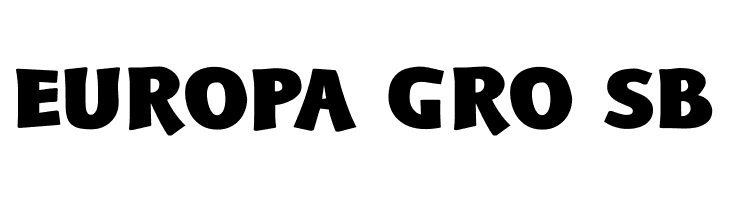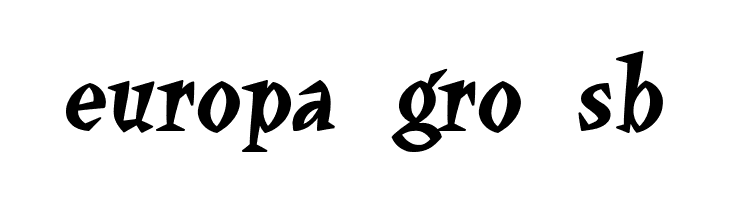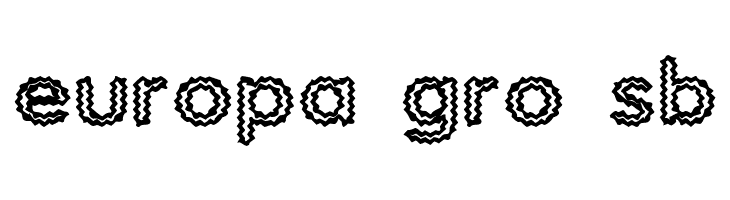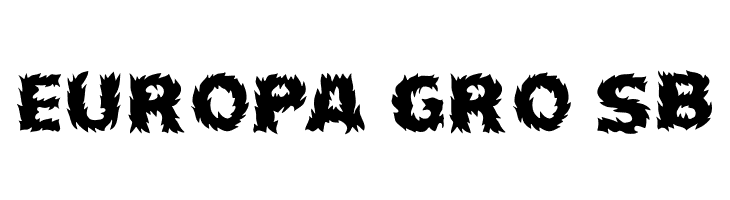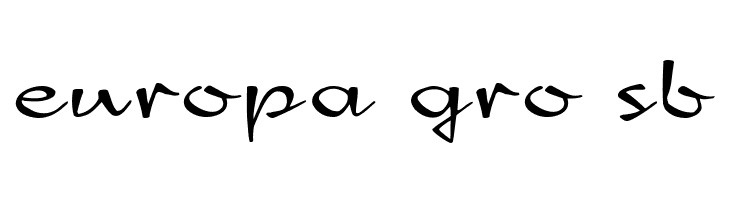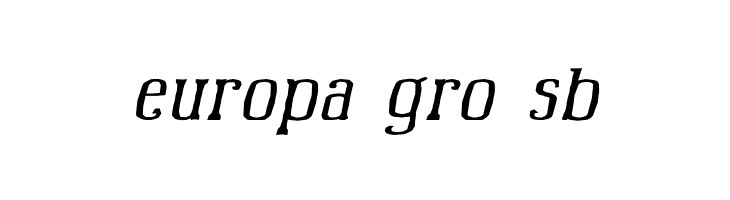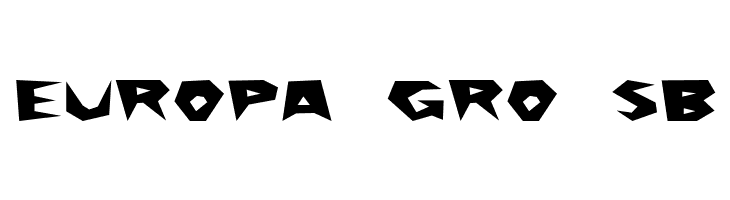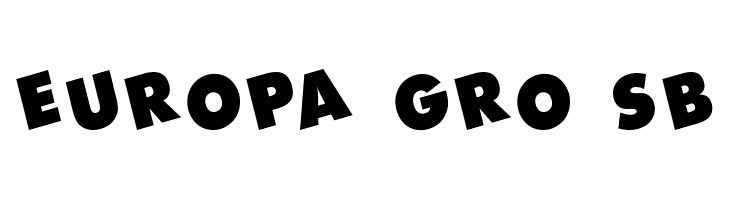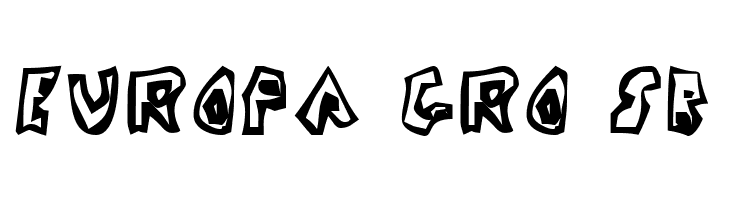
A bold, playful font with thick strokes and dynamic character shapes.
An oblique, angular serif font with a dynamic and energetic style.
A bold, zigzag-patterned font with an energetic and dynamic style.
( Fonts by Rick Mueller )
A bold, flame-inspired decorative font with dynamic, jagged edges.
( Fonts by Rick Mueller )
A lively, handwritten-style font with energetic strokes and modern appeal.
A dynamic italic font with moderate contrast and a distinctive style.
( Fonts by Marty Bee - www.martybee.com )
A bold, angular font with sharp, jagged edges and a dynamic, energetic style.